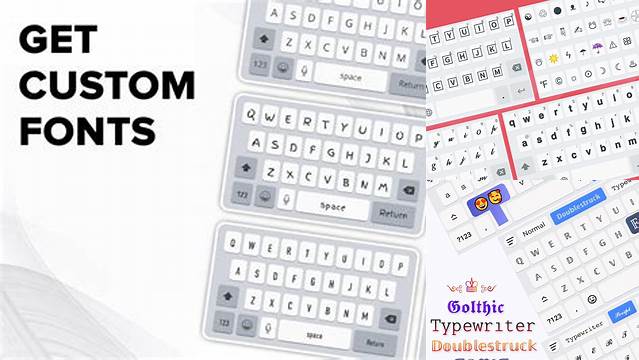
AA Fonts Keyboard App: Free Download For Cool Fonts
Hey guys! Ever feel like your texts and social media posts are just… blah? Want to spice things up and make them pop? Well, you're in the right place! We're diving deep into the world of AA Fonts Keyboard Apps, and how you can snag one for free to unleash your inner creative genius. Get ready to transform your everyday typing into a visual masterpiece! With the AA Fonts Keyboard App, you can change any ordinary text into unique text. You can also freely download the application on your smartphone. So, read this article to the end and understand it!
1. What is an AA Fonts Keyboard App?
Okay, first things first, let's break down what an AA Fonts Keyboard App actually is. Basically, it's a keyboard app you download onto your smartphone or tablet that offers a wide variety of cool and stylish fonts beyond the standard ones you're used to. Instead of boring old Arial or Times New Roman (who even uses those on their phone?!), you can type in cursive, bubble letters, gothic fonts, and a whole bunch of other eye-catching styles. The main purpose of an AA Fonts Keyboard App is to allow users to add visual appeal and personality to their text messages, social media posts, and other digital communications. These apps often include a diverse selection of fonts that go beyond the standard system fonts available on mobile devices. With the AA Fonts Keyboard App, you can also express your mood and add a unique touch to your text messages.
Imagine you're posting a birthday message for a friend. Instead of just writing "Happy Birthday!" in plain text, you could use a fun, celebratory font that matches their personality. Or, if you're creating an Instagram story, you could use a bold, attention-grabbing font to highlight a key message. The possibilities are endless! The AA Fonts Keyboard App comes with various features and the main feature is the font itself. However, there are also other features such as themes and others.
2. Why Use an AA Fonts Keyboard App?
So, why bother with an AA Fonts Keyboard App in the first place? Well, there are tons of reasons! First and foremost, it's a fantastic way to stand out from the crowd. In a world of endless scrolling and fleeting attention spans, using unique fonts can help your messages grab people's eyes and make a lasting impression. An AA Fonts Keyboard App allows you to create visually interesting content, express yourself more effectively, and add personality to your digital interactions. By using different fonts, you can convey different moods, highlight important information, and make your content more engaging.
Beyond aesthetics, AA Fonts Keyboard Apps can also be a great way to express your personality. The fonts you choose can reflect your mood, your style, and even your sense of humor. Are you feeling playful and quirky? Go for a fun, bubbly font! Want to project a more sophisticated and elegant vibe? Try a sleek, cursive font. AA Fonts Keyboard Apps allow you to add a personal touch to your messages and make them truly your own. You can use fonts to express different emotions, create visual themes, and even develop your own unique style. For example, if you're a fan of vintage aesthetics, you might choose a font that mimics old-fashioned typewriter text. Or, if you're into futuristic designs, you could opt for a sleek, geometric font.
Another great reason to use an AA Fonts Keyboard App is to enhance your social media presence. Whether you're posting on Instagram, TikTok, Facebook, or Twitter, using eye-catching fonts can help you attract more followers, increase engagement, and build a stronger brand. Imagine using a bold, attention-grabbing font for your Instagram captions, or a playful font for your TikTok videos. The right font can make your content more visually appealing and help you stand out from the competition. Furthermore, AA Fonts Keyboard Apps can be especially useful for creating visually appealing stories and posts on platforms like Instagram and Snapchat. By using different fonts, you can highlight key messages, add creative flair, and make your content more engaging for your followers. The AA Fonts Keyboard App can also help you maintain a consistent visual style across all your social media platforms, which can strengthen your brand identity and make your content more recognizable.
3. Finding Free AA Fonts Keyboard Apps
Okay, so you're sold on the idea of using an AA Fonts Keyboard App, but you don't want to shell out any cash? No problem! There are plenty of free options available. The key is to know where to look and what to look for. When searching for a free AA Fonts Keyboard App, be sure to check user reviews and ratings to ensure that the app is reliable, safe, and offers a good selection of fonts. Also, pay attention to any potential in-app purchases or subscription fees that may be required to access certain fonts or features. You can also ask your friends about the best AA Fonts Keyboard App for you.
One of the best places to start your search is the Google Play Store (for Android users) or the App Store (for iOS users). Simply type "fonts keyboard" into the search bar, and you'll be presented with a plethora of options. However, be careful! Not all apps are created equal. Some may be riddled with ads, while others may offer a limited selection of fonts unless you pay for a premium subscription. When browsing the app store, take the time to read the app descriptions, check out screenshots, and, most importantly, read user reviews. This will give you a good sense of the app's quality, features, and overall user experience.
Another great resource for finding free AA Fonts Keyboard Apps is to search online. There are many websites and blogs that curate lists of the best free apps for various purposes, including font keyboards. These lists can be a great way to discover new and lesser-known apps that you might not find in the app store. When searching online, be sure to stick to reputable websites and avoid downloading apps from untrusted sources, as this could put your device at risk of malware or viruses. Also, pay attention to the app's permissions and ensure that it only requests access to the information it needs to function properly.
30. AA Fonts Keyboard App with Bold Fonts
Emphasize key messages with an AA Fonts Keyboard App that offers a variety of bold fonts. Perfect for highlighting important information and making your text stand out. AA Fonts Keyboard App will make your text even more visible.